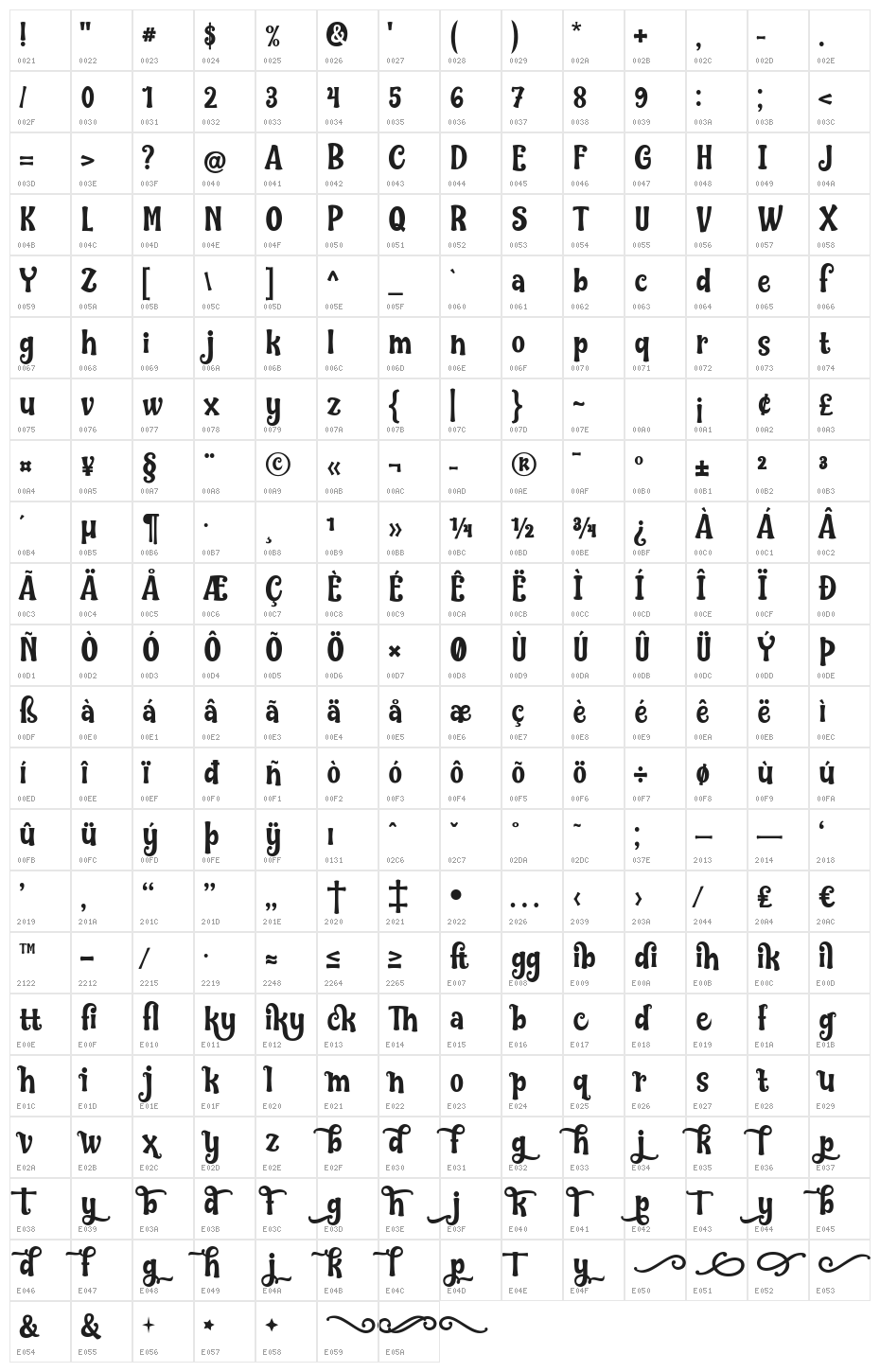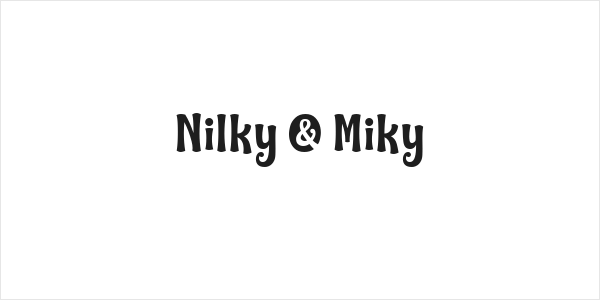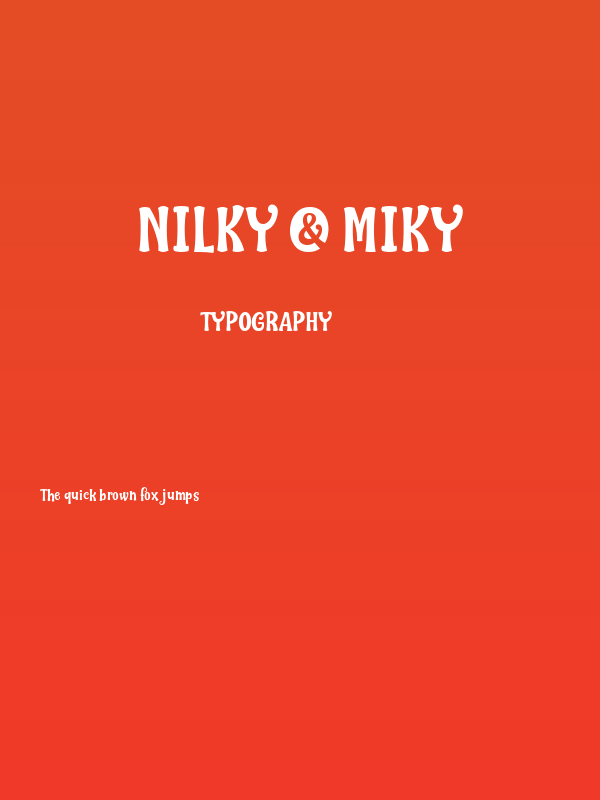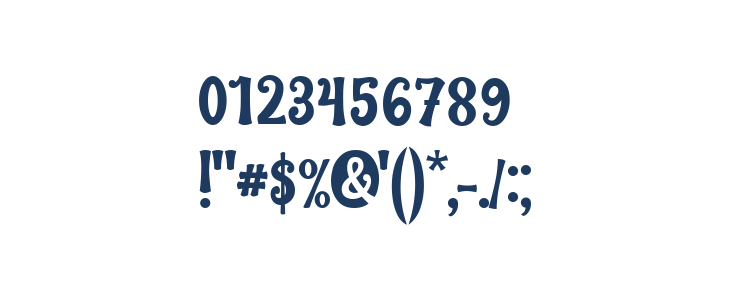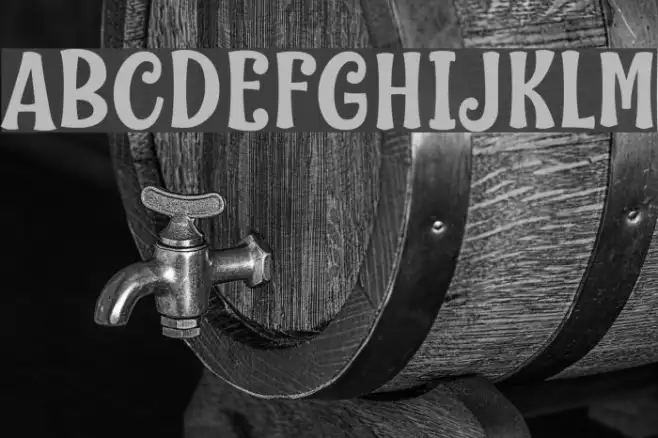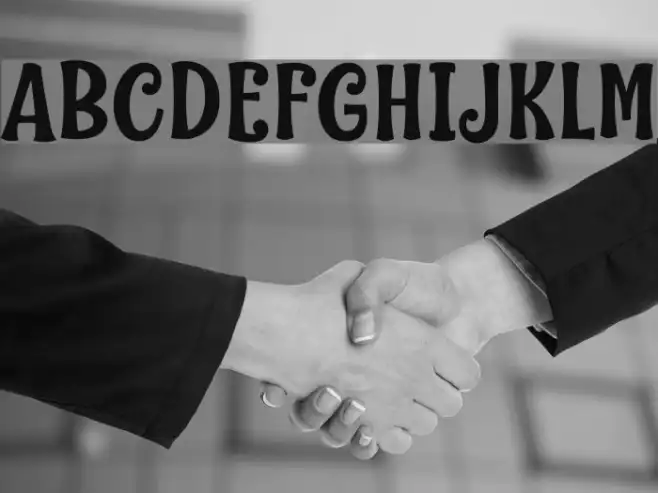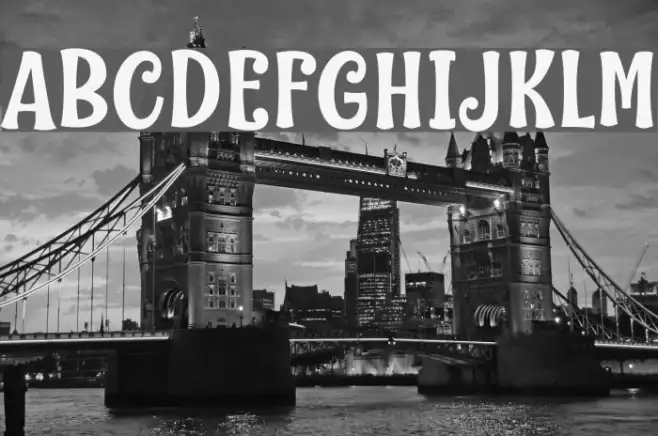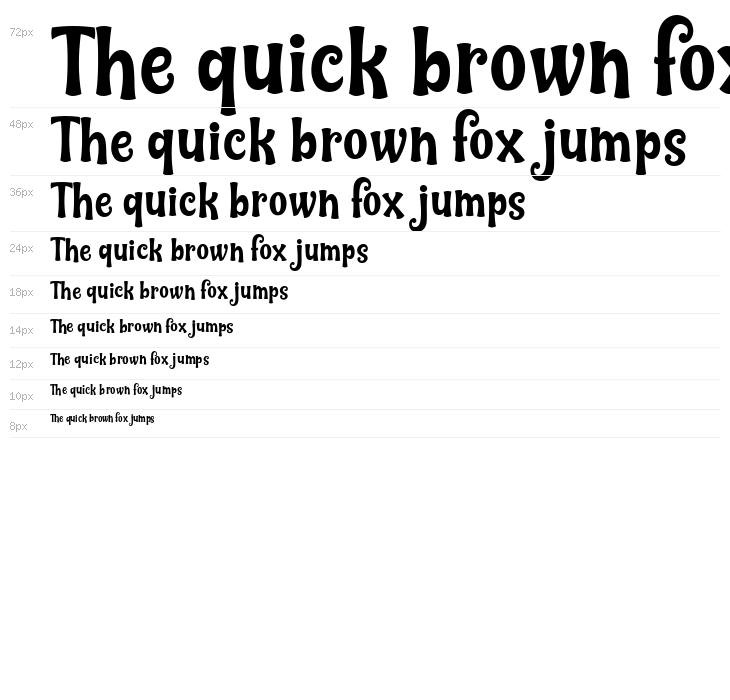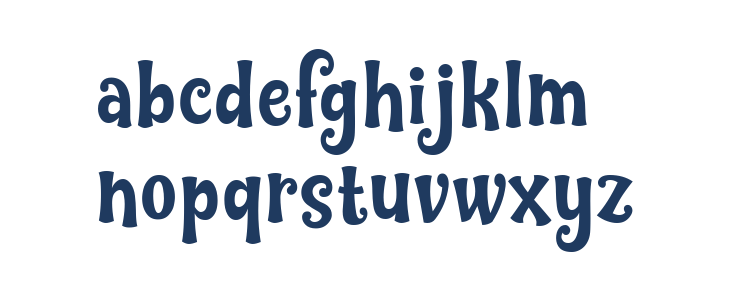
Nilky & Miky Font
Nilky & Miky Description
This font features a playful and whimsical design with bold, rounded characters that convey a sense of fun and creativity. The uppercase and lowercase letters exhibit a consistent style with slight variations in stroke width, adding to its charm. The numbers and special characters maintain the same playful aesthetic, making it versatile for various uses. The overall appearance is bold and eye-catching, suitable for designs that require a touch of personality and flair. The strokes are smooth and slightly irregular, enhancing its handcrafted feel.